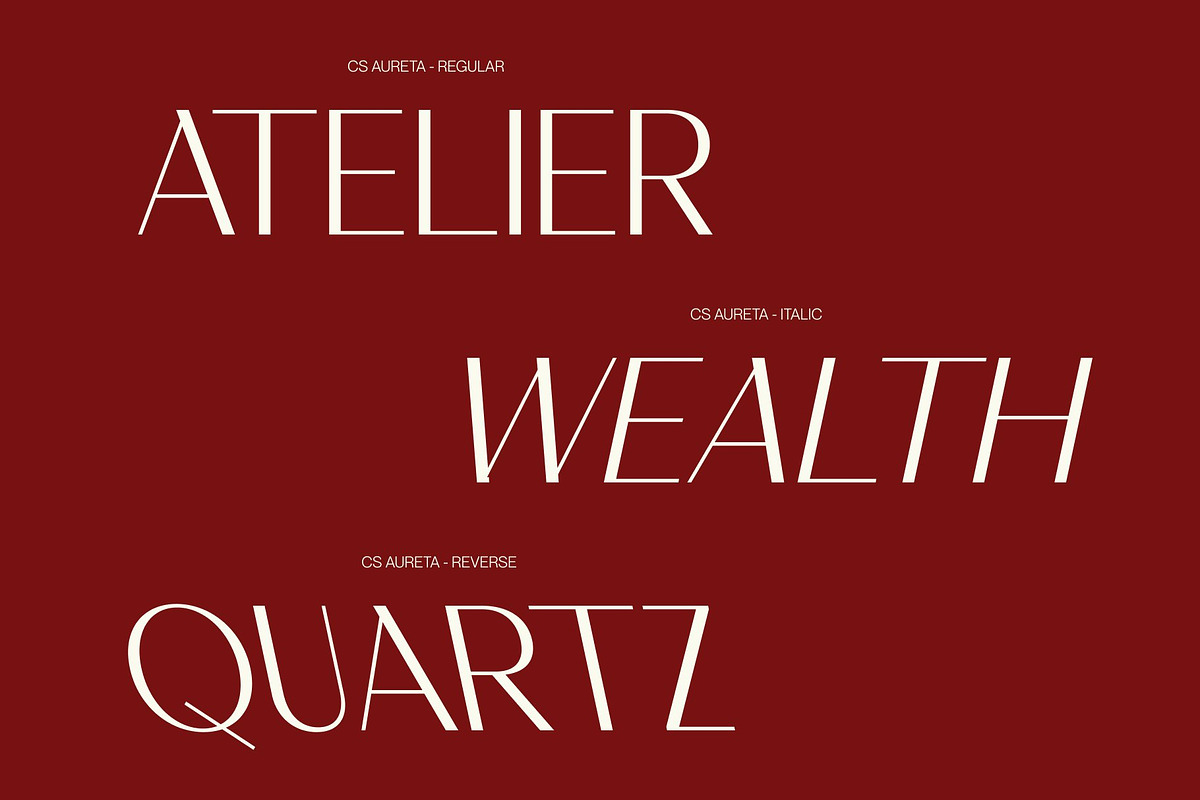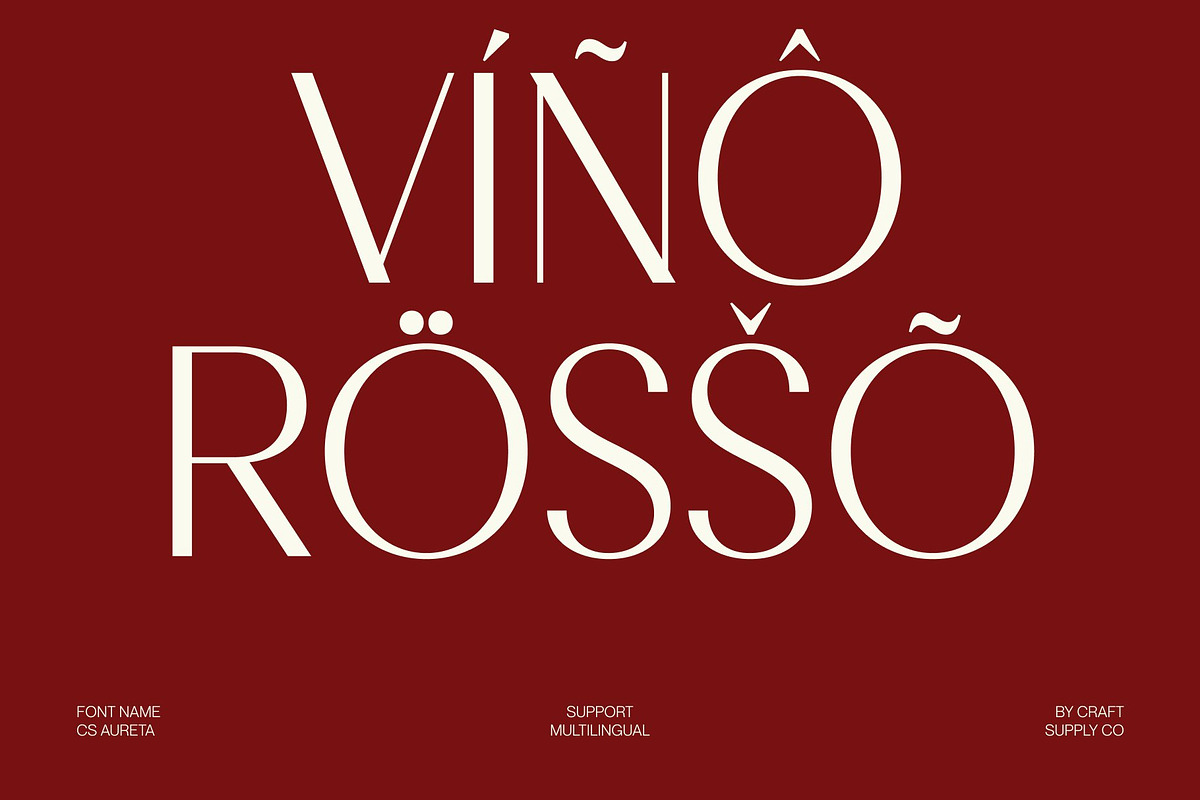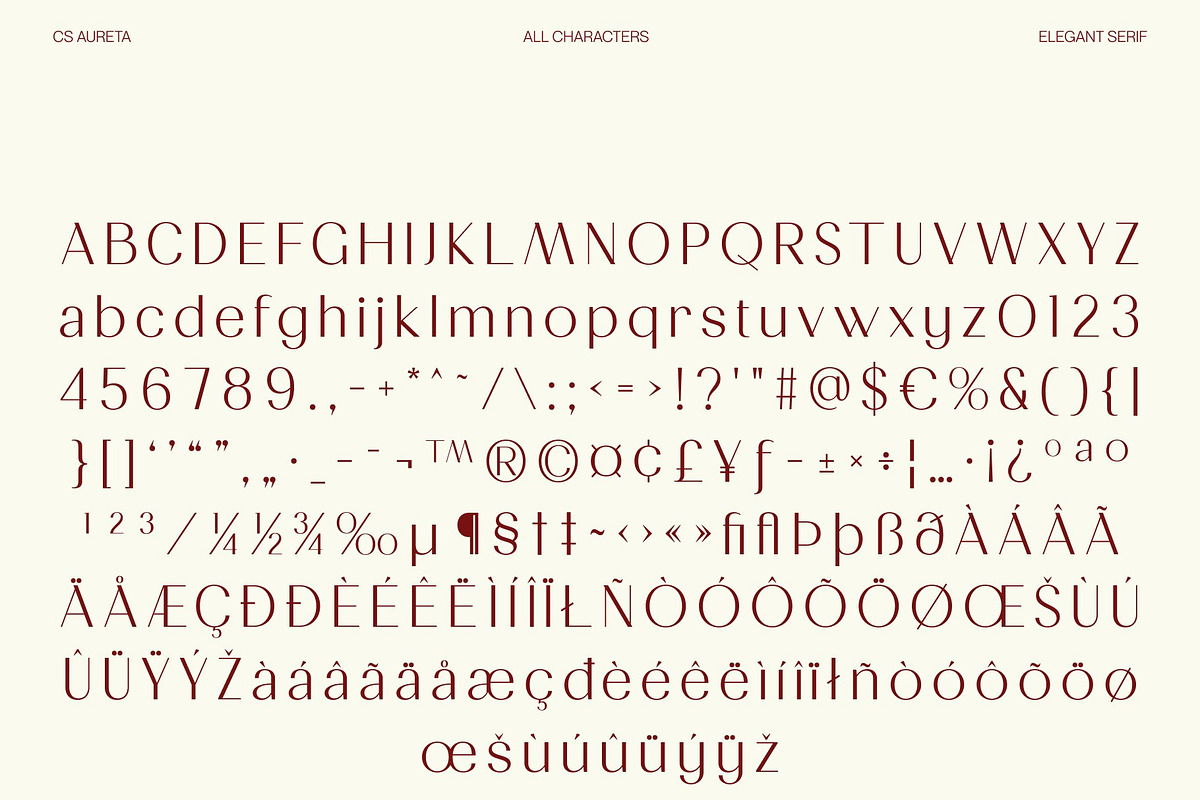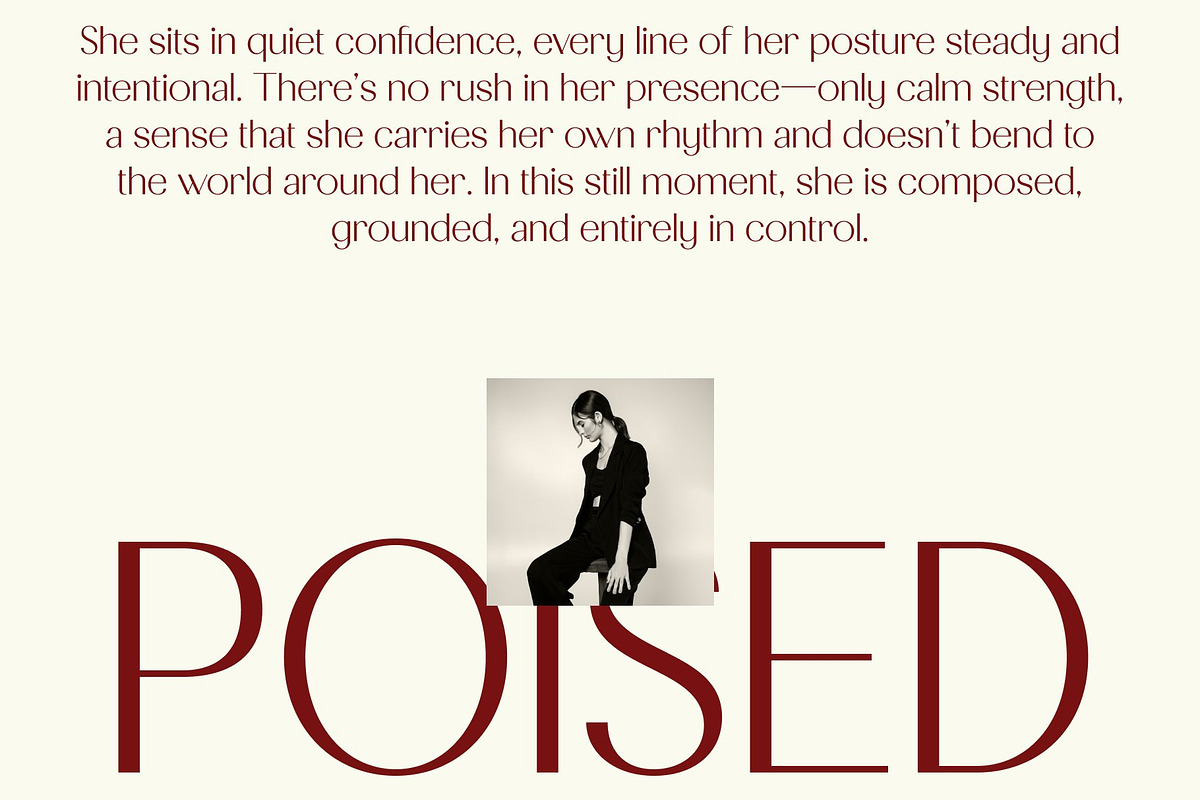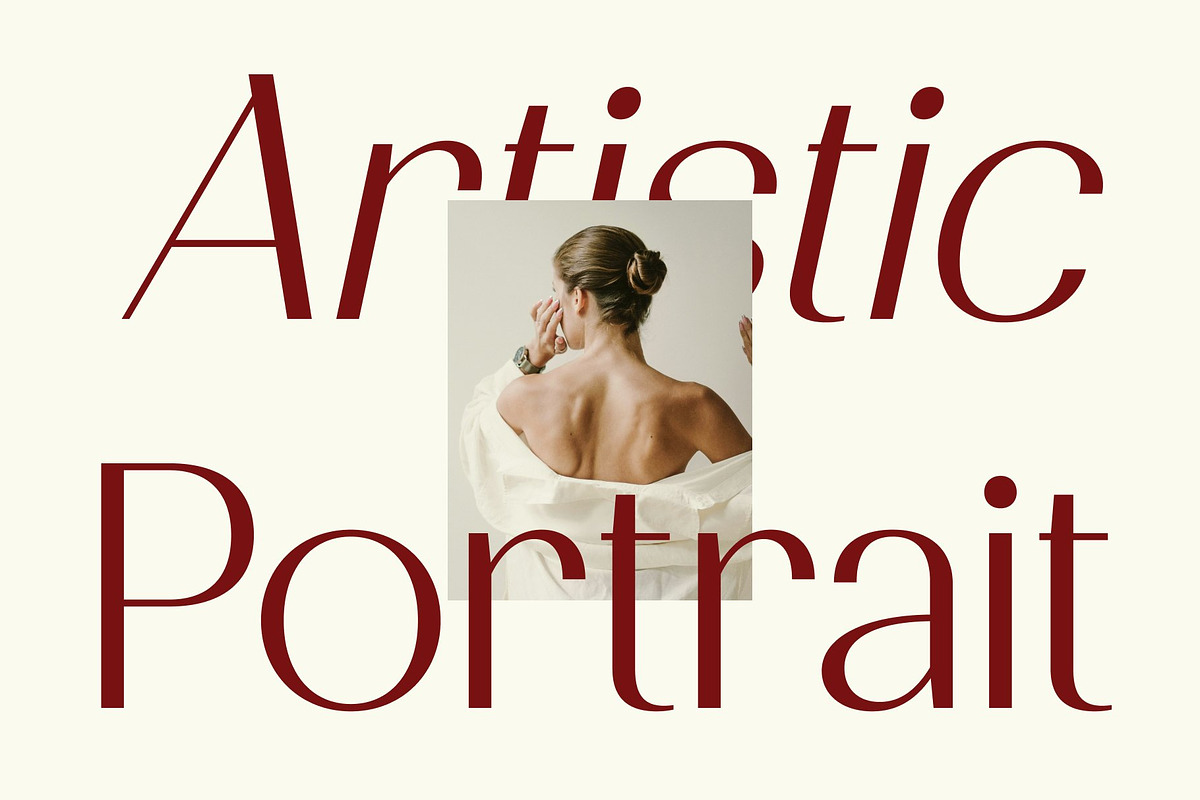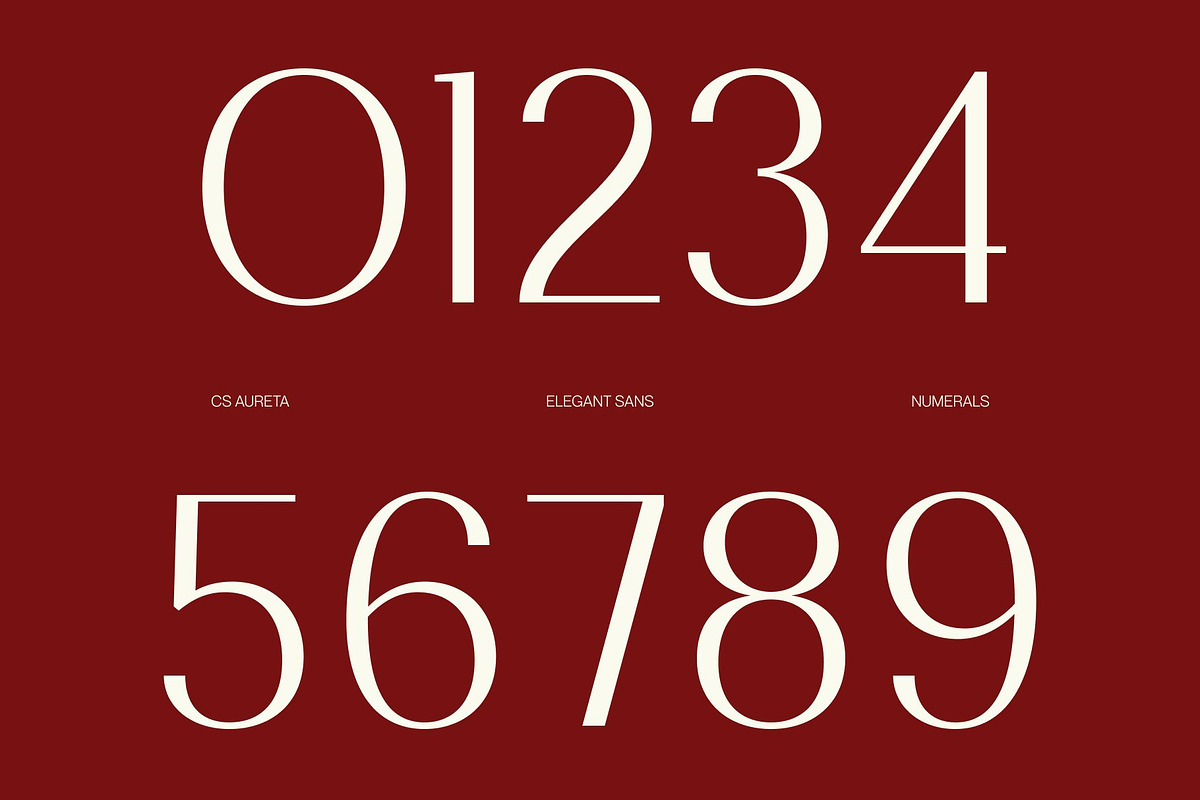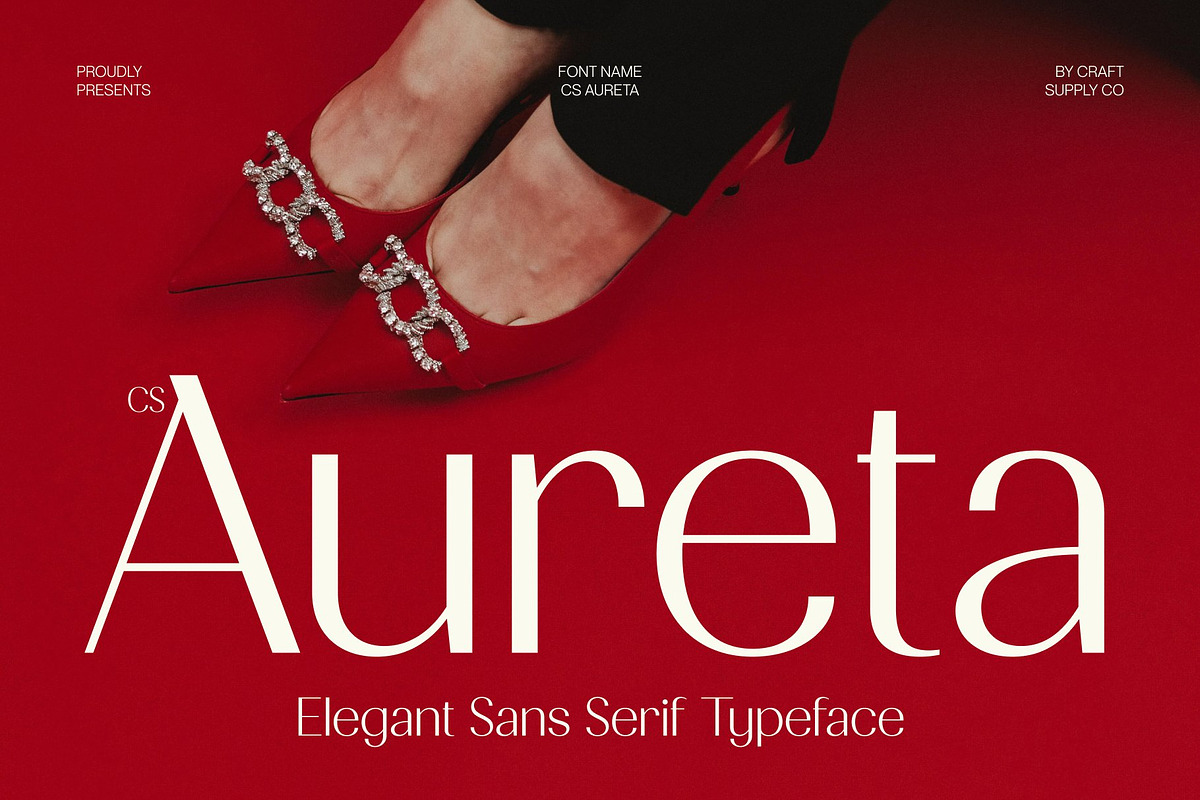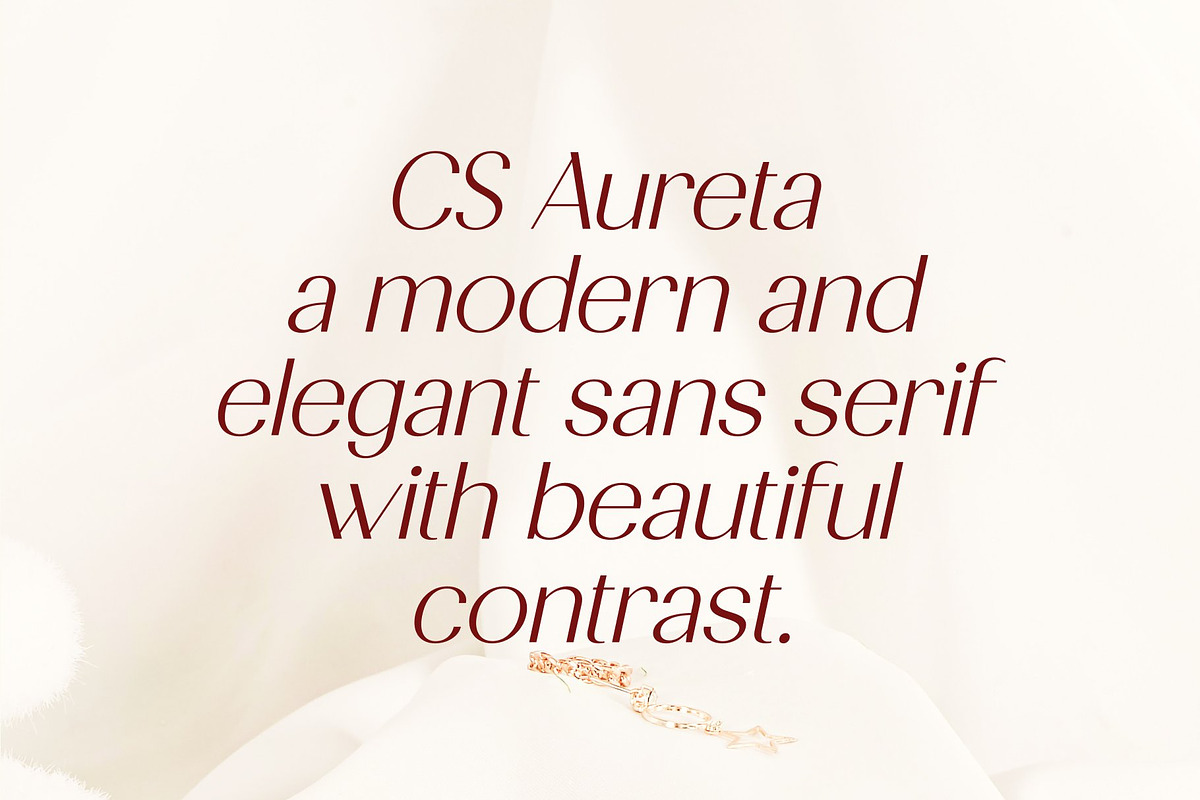
CS Aureta – Elegant Sans Serif
CS Aureta – Modern Sans Serif Font: Where Strength Meets Elegance
Confident and Refined Design This is a modern sans serif font that delivers a confident and clean visual presence. Its refined structure and balanced proportions create a strong foundation, allowing each letterform to communicate with clarity and purpose. Designed to stand out without overwhelming, this font blends strength with elegance, making it ideal for designers who seek a bold yet polished typographic voice.
Clean Lines with Strong Character Built with precision, this font features crisp lines and a minimalist approach that enhances readability while maintaining a distinctive personality. The simplicity of its form does not sacrifice impact instead, it reinforces a sense of authority and modern sophistication.
Perfect for High-Impact Headlines This font excels in headline applications where clarity and presence are essential. Its strong letterforms command attention, making it highly effective for fashion campaigns, magazine covers, and bold editorial layouts. Whether used in large-scale typography or striking titles, it ensures your message remains clear, sharp, and memorable.
Versatile for Branding and Editorial Design From luxury branding to contemporary editorial design, this font adapts effortlessly across various creative projects. Its elegant yet assertive style makes it suitable for logos, look books, packaging, and digital interfaces. With its modern appeal and versatile nature, empowers designers to create visuals that are both sophisticated and impactful.
CS Aureta Regular
CS Aureta Italic
CS Aureta Reverse Italic